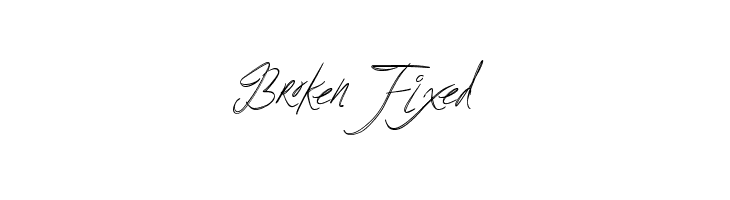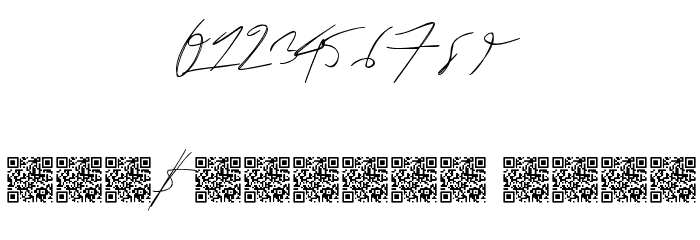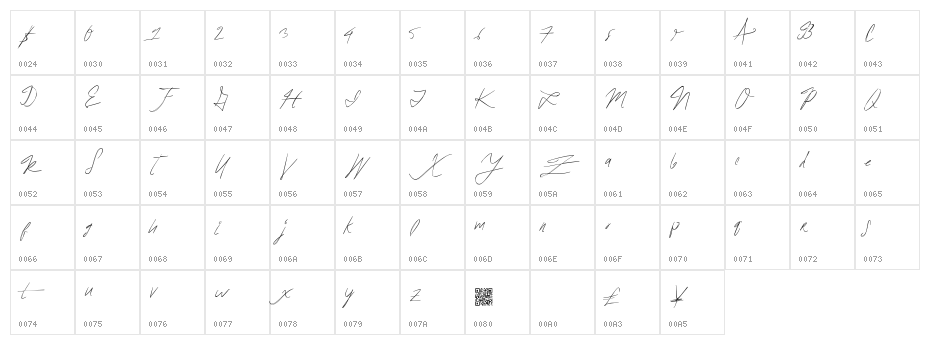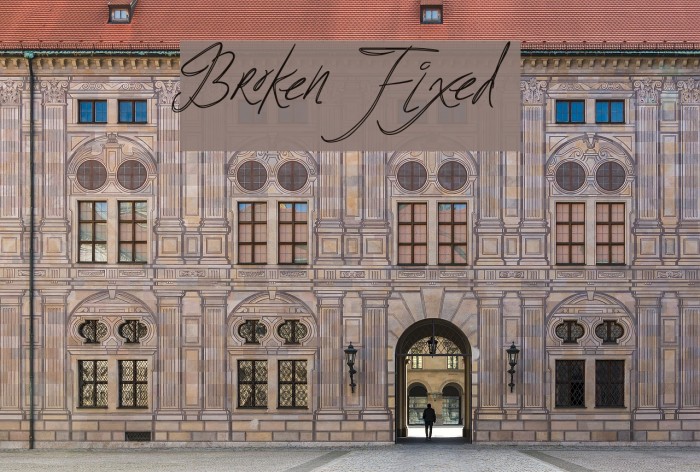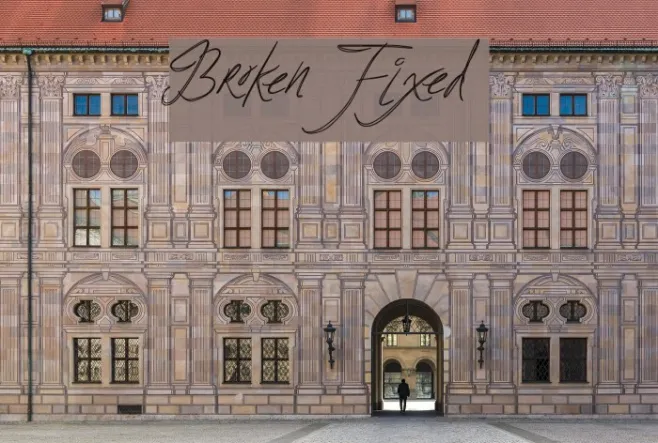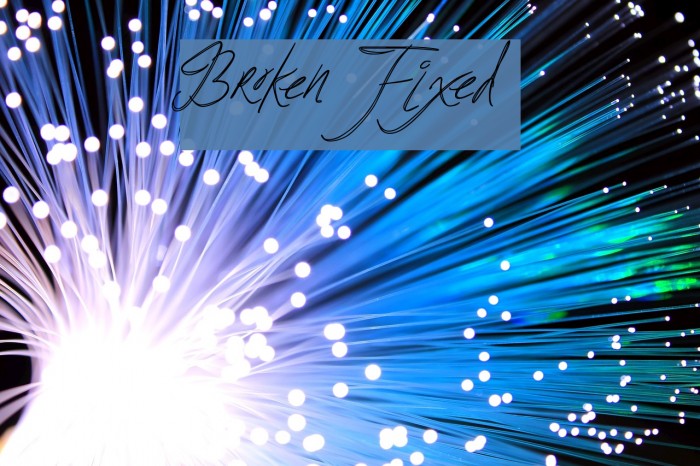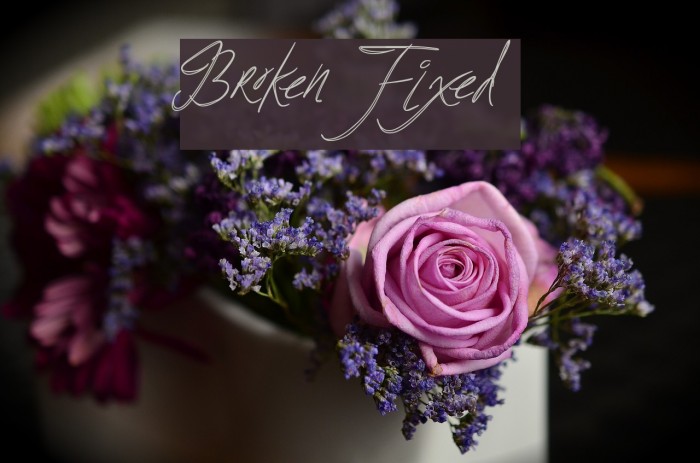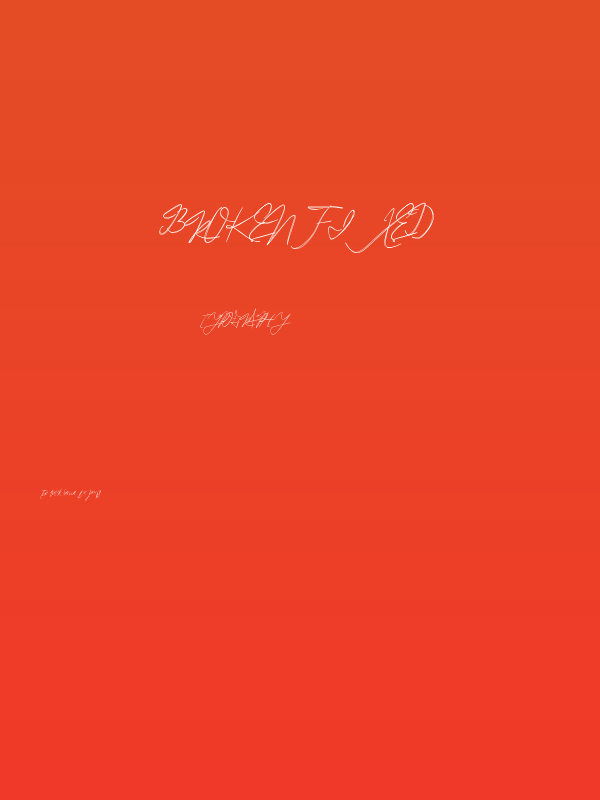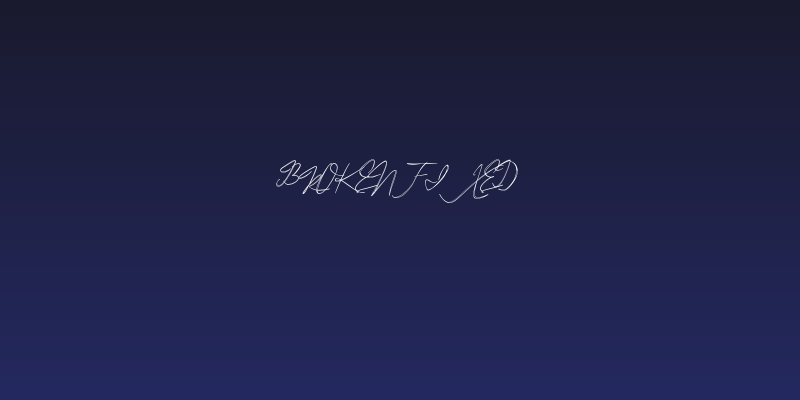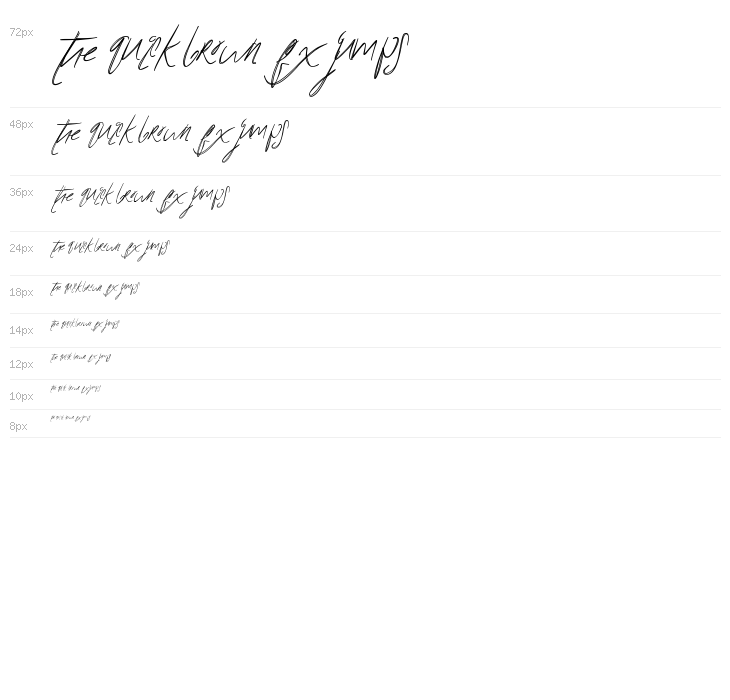
BrokenFixed Font
BrokenFixed Description
This font exhibits a dynamic and expressive handwritten style, characterized by its fluid and cursive strokes. The letters are interconnected with a natural flow, giving it an artistic and personal touch. The uppercase letters are bold and sweeping, while the lowercase letters maintain a consistent rhythm and elegance. The numerals and special characters follow the same fluidity, ensuring a cohesive look across all elements. This font is ideal for projects that require a personal or creative flair, such as invitations, greeting cards, or artistic branding. Its unique style makes it stand out, adding a touch of sophistication and individuality to any design.
| Proposed Projects | Ideal for invitations, greeting cards, artistic branding, and personal projects. |